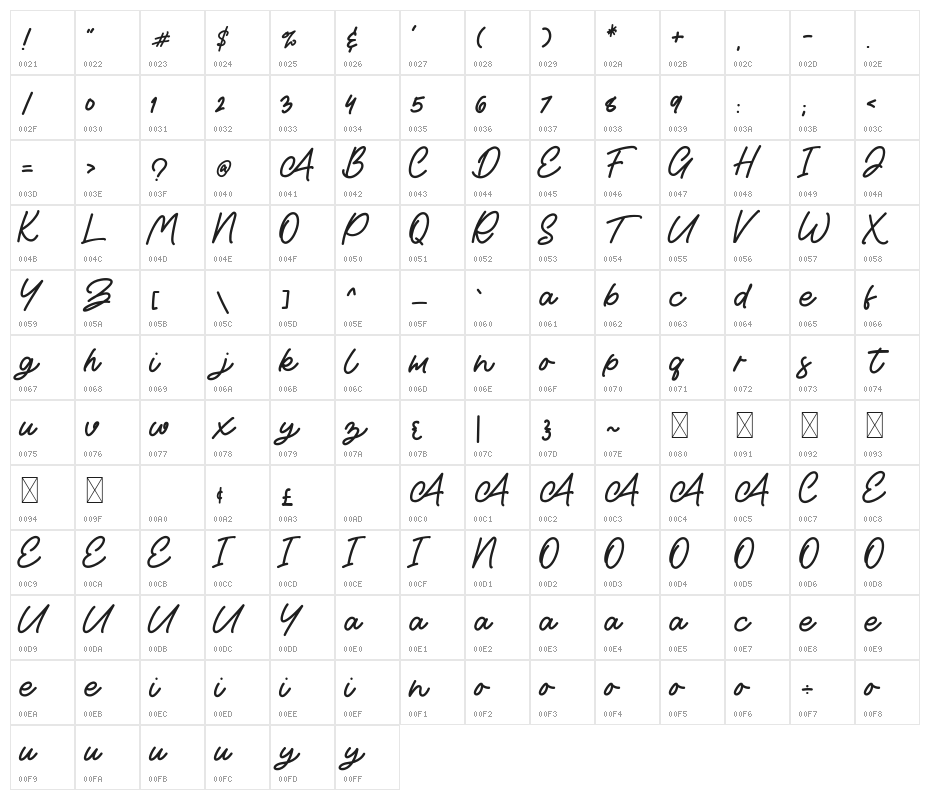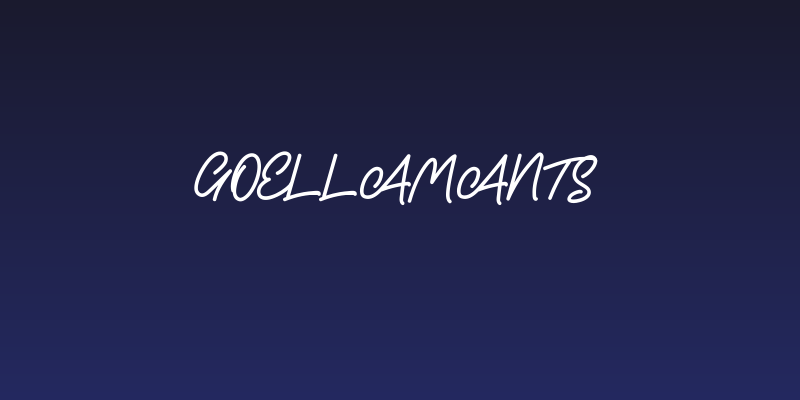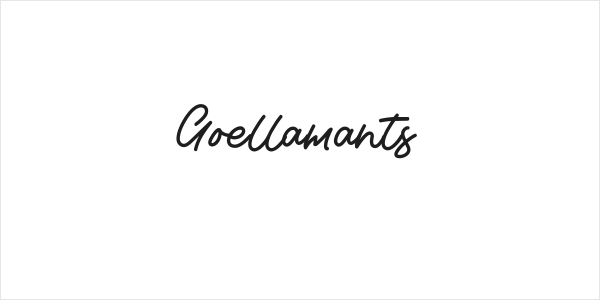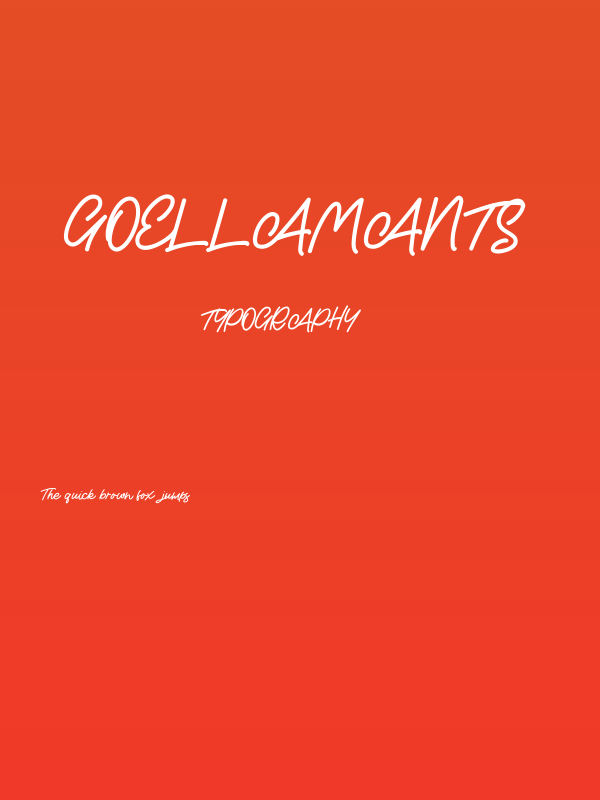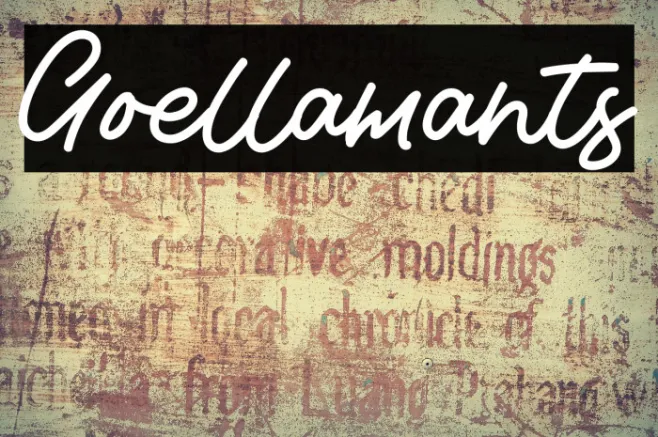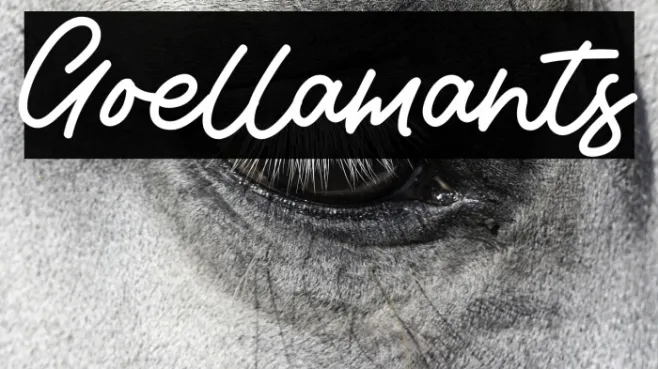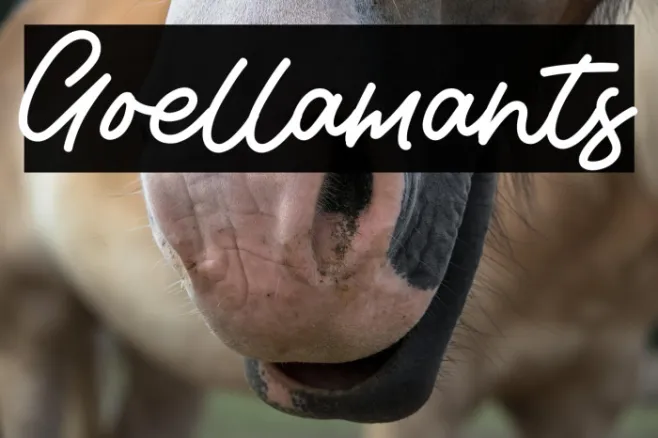
Goellamants Font
Goellamants Description
This font features a dynamic and fluid script style, characterized by its smooth, flowing lines and a handwritten appearance. The letters are connected, giving it a cohesive and elegant look, reminiscent of cursive handwriting. The uppercase letters are bold and slightly larger, while the lowercase letters maintain a consistent flow, enhancing readability. The numerals and special characters are designed to match the overall style, with a playful yet sophisticated touch. This font exudes a sense of personal expression and creativity, making it ideal for projects that require a personal or artistic flair.
| Proposed Projects | Ideal for wedding invitations, greeting cards, personal branding, and artistic projects. |